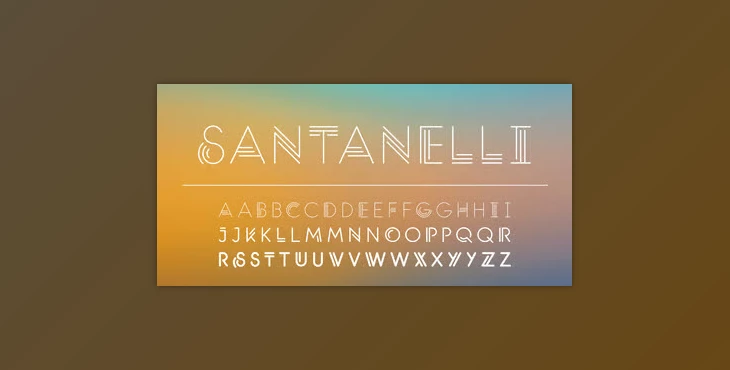
My Fonts - Santanelli - All Caps Display Typeface:
The Santanelli typeface is an original, round, all-caps display font that embellishes as it stands. This typeface is perfect for posters, editorial headlines, and logotypes that call for visual appeal. Santanelli boasts three different weights - Thin, Medium, and Bold. Notably, Santanelli has two styles of each character (decorative and clean) based on case; access the more ornamental style by using uppercase and access the cleaner style by using lowercase. This characteristic means it works well together within one word/message since it's all the same font.
Therefore, if you need an all-caps font with elements you can mix and match within the same word, Santanelli is for you! From headlines to logos, Santanelli is a practical and attractive choice for your next creative project.